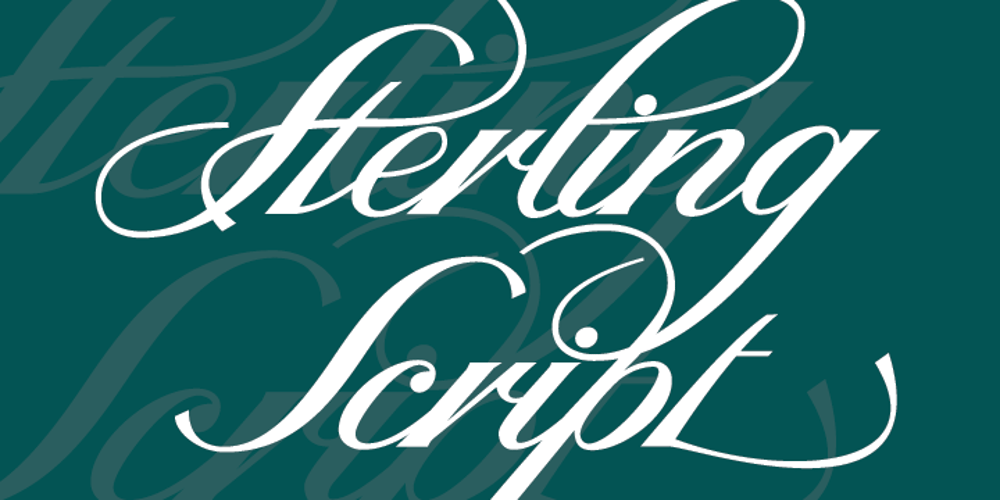
Sterling Script
Sterling Script font
Sterling Script Font Family was designed by Rebecca Alaccari, Patrick Griffin and published by Canada Type. Sterling Script contains 1 styles and family package options. Sterling Script was initially meant to a be digitization/reinterpretation of a copperplate script widely used during what effectively became the last decade of metal type: Stephenson Blake’s Youthline, from 1952. The years from 1945 to 1960 saw a heightened demand for copperplate faces, due to post-war market optimism, as well as the banking and insurance industries booming like never before, which triggered the need for design elements that express formal elegance and luxury. The name Sterling Script is a tip of our hat to England, the Stephenson Blake foundry’s country of origin. It is also a historical hint about copperplate scripts having been used mainly for banking and bonds in the 19th century. Originally we just wanted to resurrect a gorgeous metal type from the ashes of forgotten history. But after the main font was done we saw that the original s really needed an alternate. We made one. But we felt sorry for the original s and didn’t want to see it dropped from use altogether, so we saved it by building a set of ligatures that solve the minor connection problem with the s at large sizes. Before the completion of the ligatures, a few different alternates were also drawn, and we were faced by the fact that the single font we set out to do was now a much larger set than we anticipated. While thinking about how to split up our unexpected bundle of large characters, we drew a few more alternates and some swashes. This abundance “problem” reached a certain point where there was no looking back, so we just decided to go all the way with this font. We added many more alternates, swashes, ligatures, and two full sets of each beginning and ending lowercase letter. The result is over 750 characters of sheer elegance. Sterling Script has many features that set it above and beyond other copperplate scripts: – It has 2 beginning and 2 ending alternates for every single lowercase character. The beginning and ending variants on the vowels are also available in accented form in the appropriate cells of the character map. – Sterling Script is the ultimate elegant font choice for luxury design. Very elegant, but not too soft. Its strong and confident shapes convey a message that is real, comforting and assuring. – One of the eventual purposes of expanding Sterling Script this extensively was to create a script that finds the middle ground between formal and informal without compromising either trait, a script where the degree of formality can be gauged, tweaked, cranked up or toned down depending on the layout’s needs. Aside from beginnings and endings, there are multiple variations for the majority of the basic characters. This is a formal script on steroids, where twirls and swashes can be set to come out unexpectedly from any place in the word, which is great for reducing the inherent rigidity of words set in copperplate scripts and “humanizing” them whenever needed. This is especially useful for wedding, postcard and invitation design, where not every viewer of the collateral material has something to do with banking or insurance. – With such an extensive character set, a designer can easily set a word or a sentence in 10 or more different ways, and choose the perfect one for the task at hand. This is particularly useful for work where details are of utmost importance, like logos, slogans, or elegant engravings that consist of one to three words. Let those swashes and twirls intertwine for maximum elegance. The Sterling Script complete package consists of 7 fonts: Sterling Script, Alternates, Beginnings, Endings, Swashes, Swash Alternates, and Ligatures. Sterling Script is available in five different purchase options and price ranges. But with such a massive offering of variation, the Sterling Script complete package is definitely the most value-laden set in its class. Once you use Sterling Script, you will never want to go back to other copperplates.